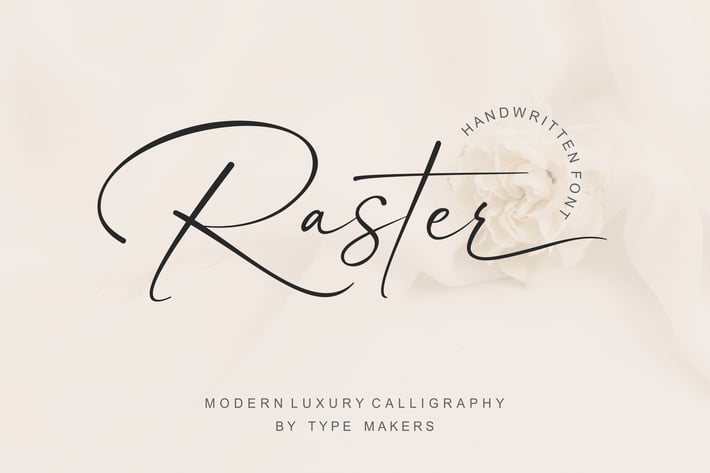
Raster Signature Font
Raster Signature - Casual Handwritten Font
Raster Signature is a natural handwritten font, this font Is perfect for logos, invitations, stationery, wedding designs, social media posts, advertisements, product packaging, product designs, label, photography, watermark, special events, or anything.
Raster Signature comes with a full set of uppercase and lowercase letters, lowercase swashes, multilingual symbols, numerals, punctuation.